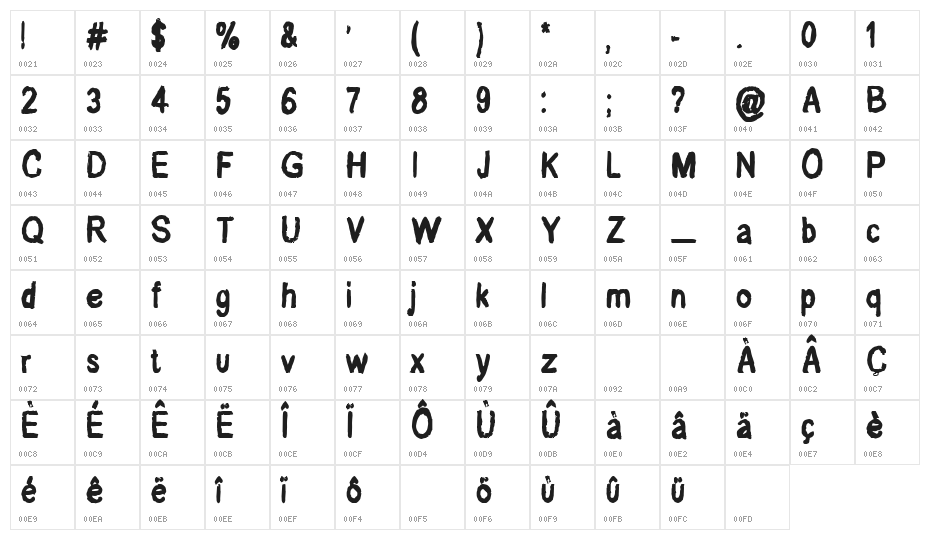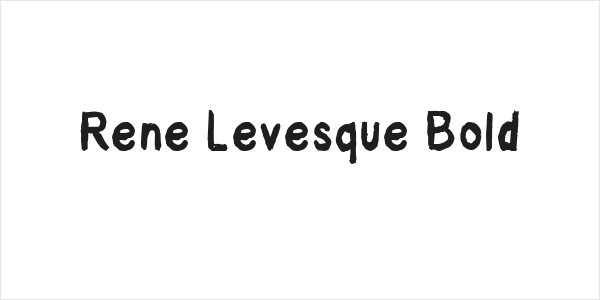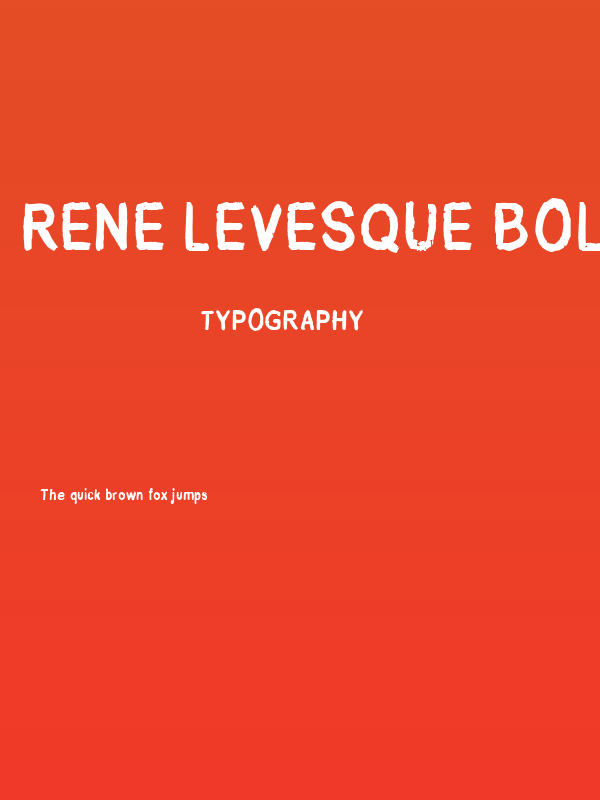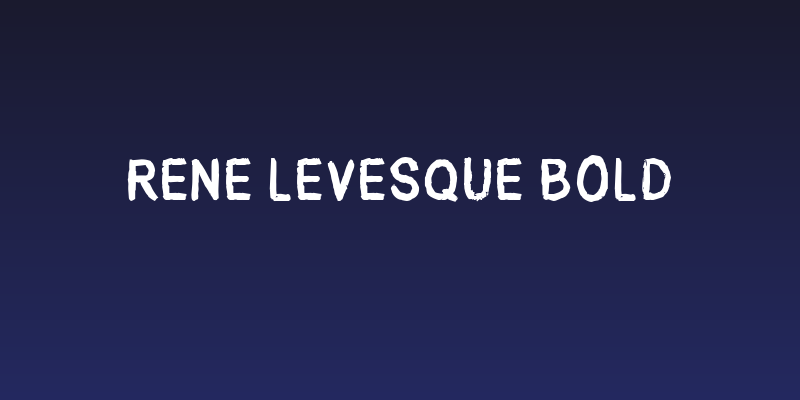
Rene Levesque Bold Font
Rene Levesque Bold Description
This font features a bold, hand-painted style with a rugged and textured appearance. The characters are uneven and slightly irregular, giving it a raw and organic feel. The uppercase and lowercase letters maintain a consistent boldness, while the numerals and special characters follow the same aesthetic. The strokes are thick and the edges are rough, adding to its handcrafted look. This font is ideal for projects that require a strong, artistic touch, such as posters, album covers, or branding for creative industries.
| Proposed Projects | Ideal for posters, album covers, artistic branding, and creative industry materials. |